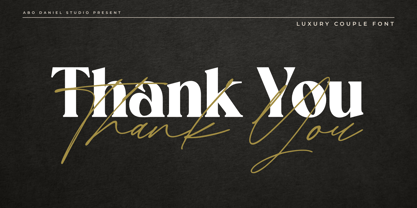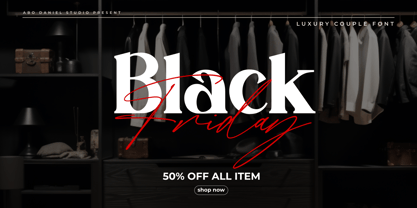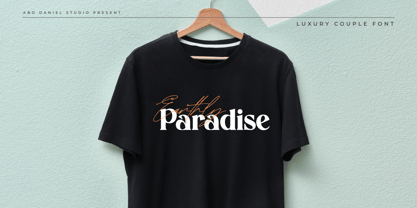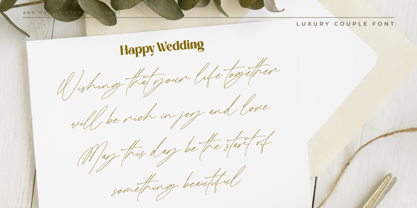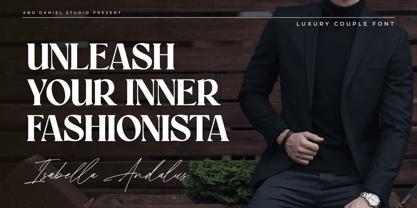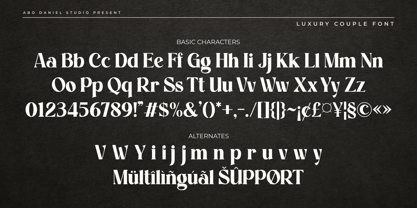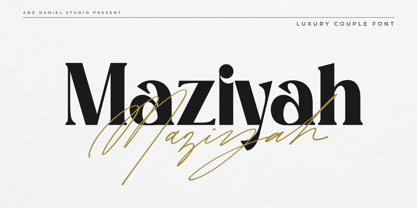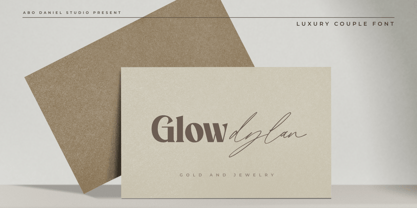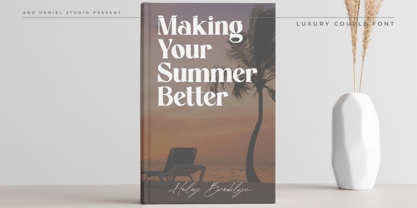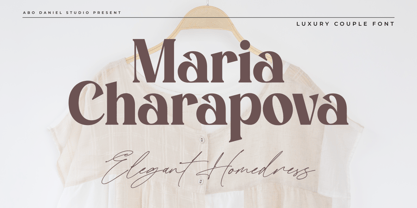
Maziyah
by Abo Daniel
Maziyah – Luxury Couple Font (Sans & Signature)
Maziyah is a graceful font duo that blends simplicity and sophistication in one package. This set comes with two complementary styles — Maziyah Sans and Maziyah Signature — giving you the perfect pair for creating timeless and versatile designs.
Maziyah Sans offers a clean, modern look with smooth lines and balanced proportions, ideal for headlines, body text, and minimalist branding.
Maziyah Signature brings a stylish handwritten script with flowing strokes and natural elegance, perfect for adding a personal touch to logos, invitations, and social media posts.
Together, they create harmony — a flawless combination of structured sans serif and expressive signature script.
With Maziyah, you can pair modern simplicity with handwritten elegance — a beautiful duo that elevates your creative projects.